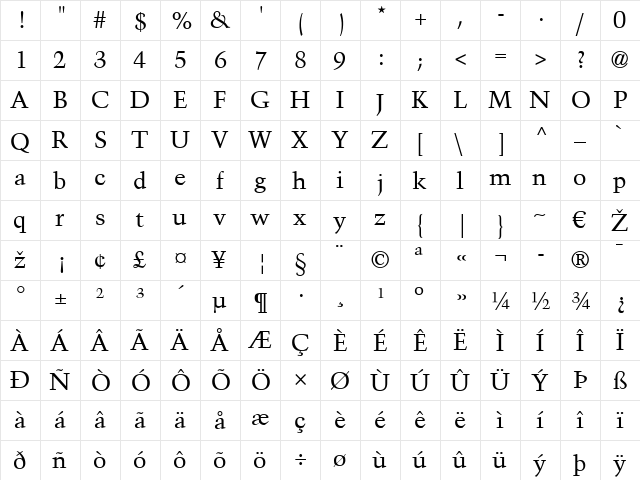
TrumpMediaeval LT Regular
Design Context for TrumpMediaeval LT Typeface
TrumpMediaeval LT is a composed and adaptable typeface that performs quietly and consistently across a wide range of design contexts. Its slender proportions lend an understated elegance to any composition.